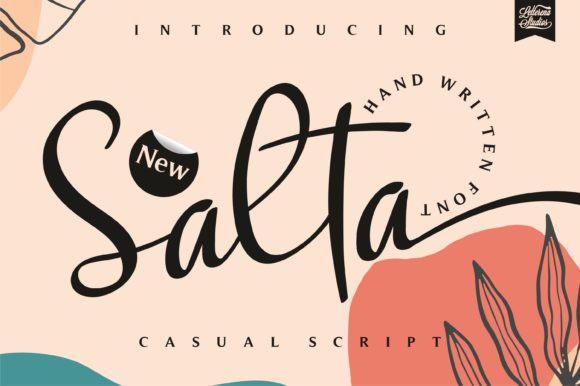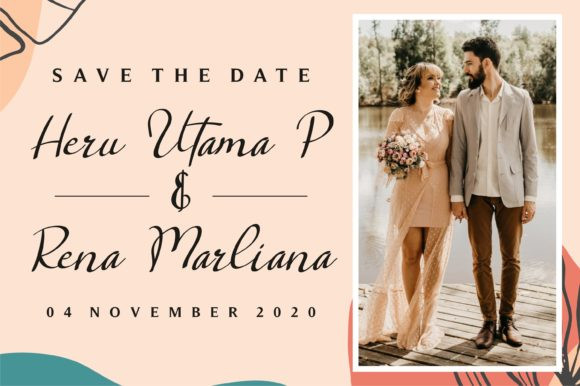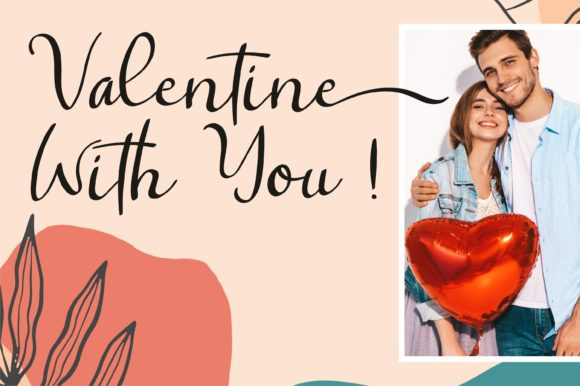
Salta Font
Salta FontSalta is a fun and friendly handwritten font. This font is suitable for any projects such as: logos, branding projects, homeware designs, product packaging, mugs, quotes, posters, shopping bags, t-shirts, book covers, invitation cards, greeting cards, label, photography, watermark, special events, and all your other lovely projects that need a beautiful calligraphy taste.